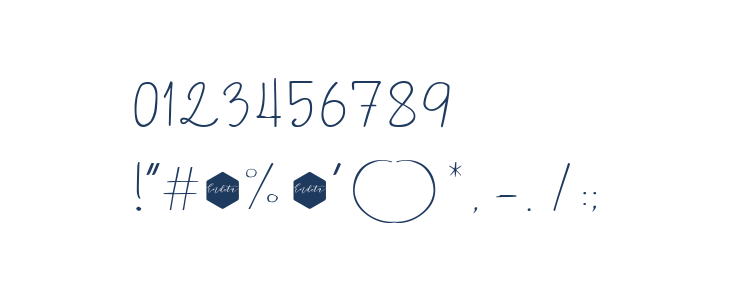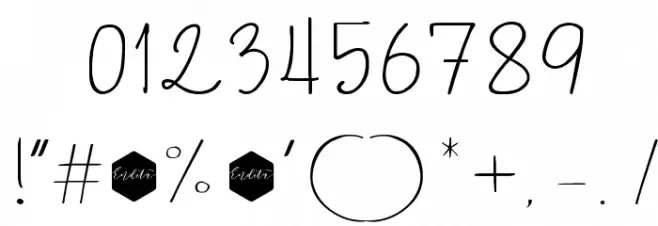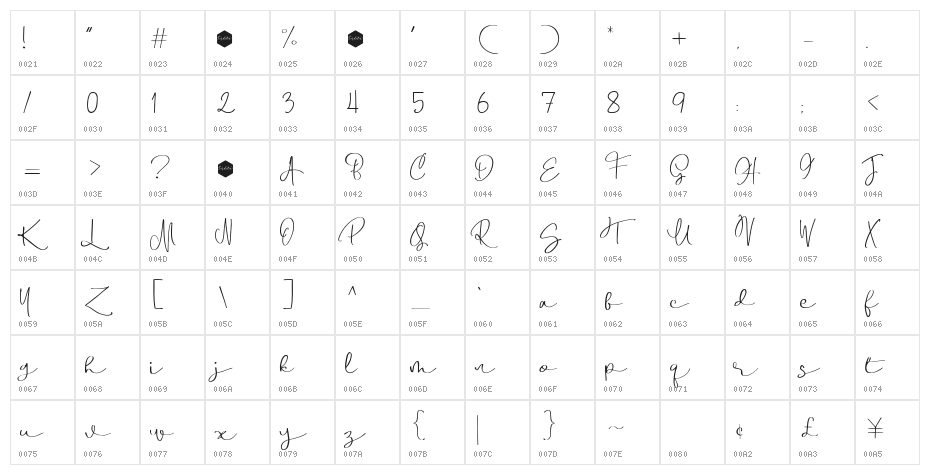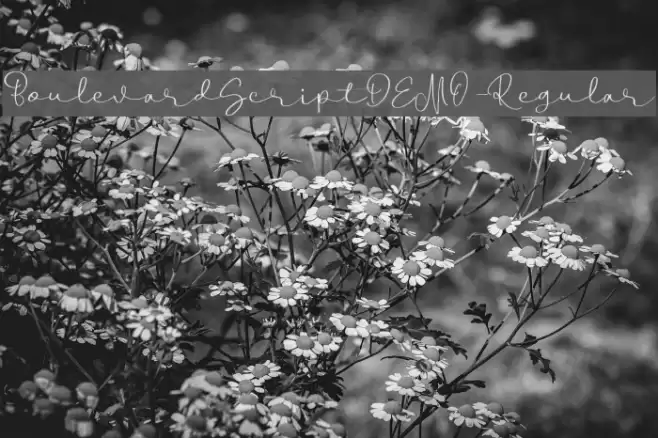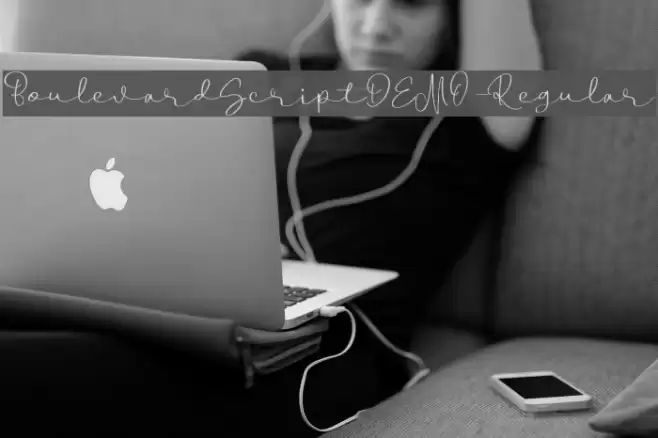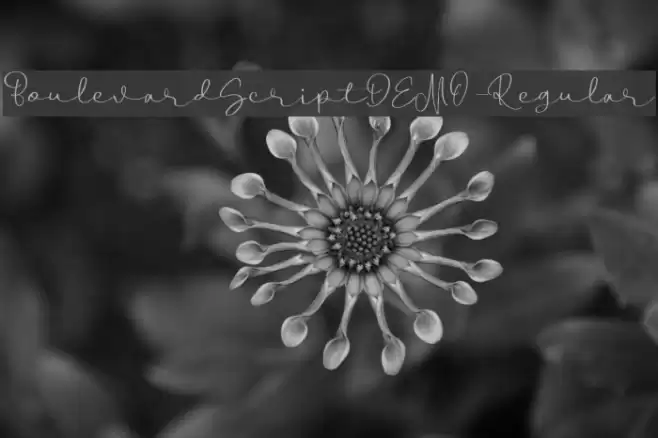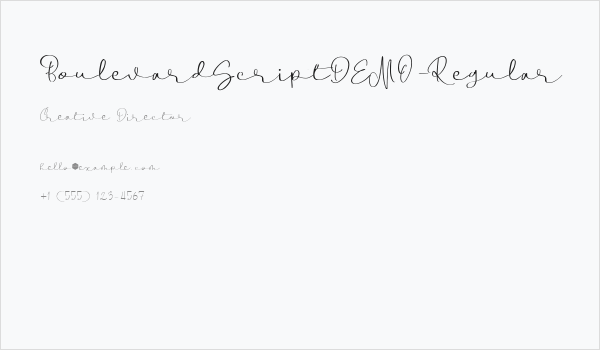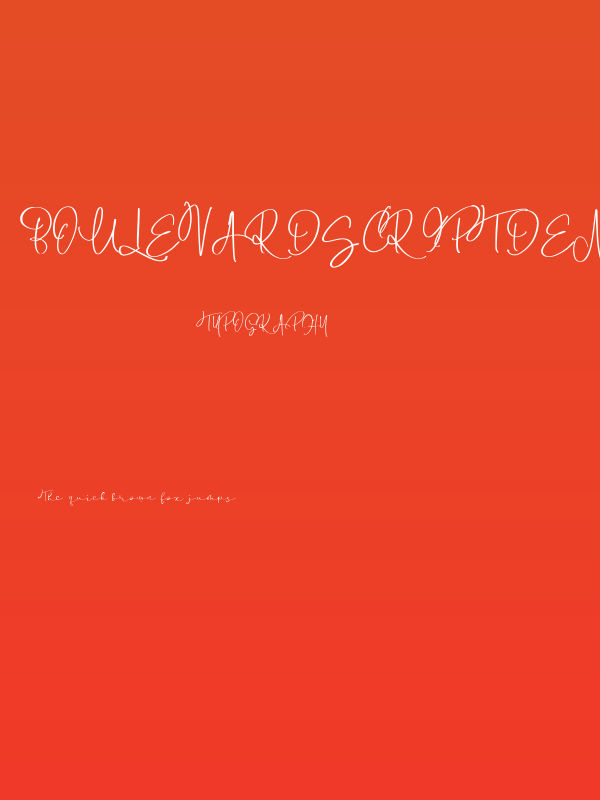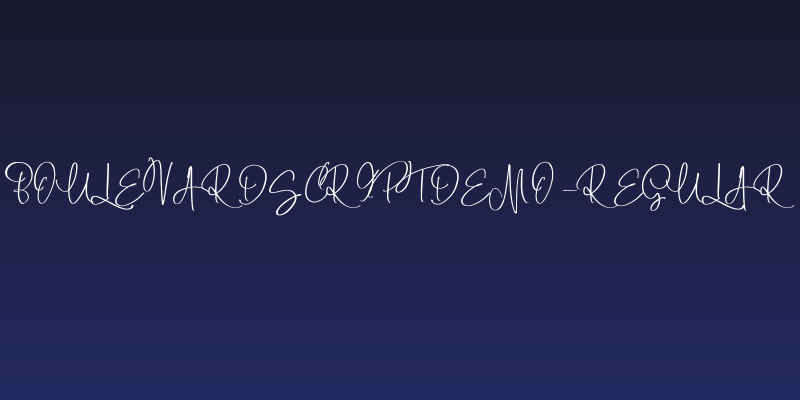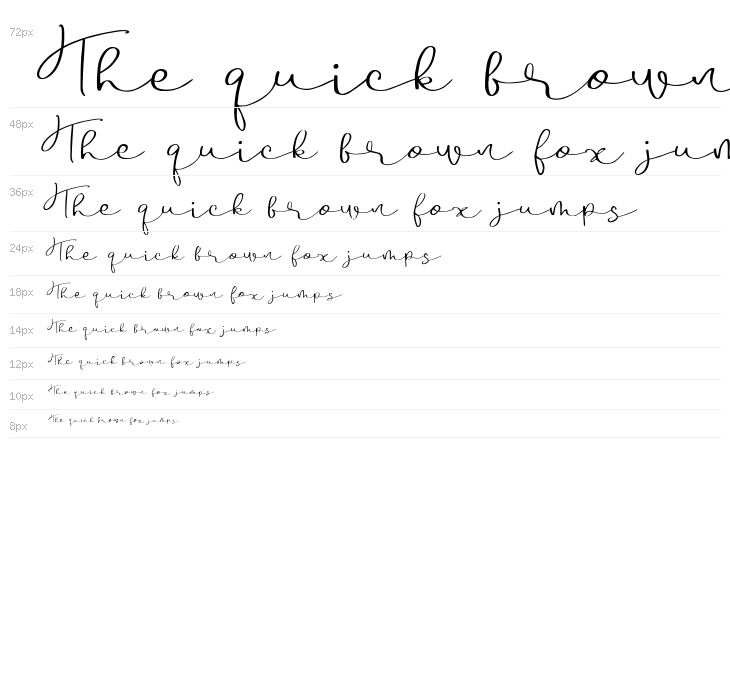
BoulevardScriptDEMO-Regular Font
BoulevardScriptDEMO-Regular Description
This font features an elegant and flowing script style, characterized by its smooth, cursive lines and graceful curves. The uppercase letters are particularly ornate, with sweeping ascenders and descenders that add a touch of sophistication. The lowercase letters maintain a consistent flow, enhancing readability while preserving the decorative nature of the script. Numbers and special characters are designed to match the overall aesthetic, providing a cohesive look across all text elements. This font is ideal for projects that require a personal, handwritten touch, such as invitations, greeting cards, or branding materials.
| Use Case | Headlines, Invitations, Branding |
| Proposed Projects | Ideal for wedding invitations, greeting cards, personal branding, and elegant signage. |